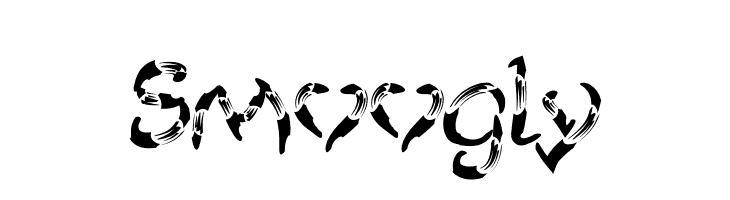
A playful, cloud-like decorative font with a fluffy, bold appearance.
A bold, modern, and condensed font with consistent stroke thickness.
A bold, brush-style font with dynamic, expressive strokes.
A retro-themed dingbat font with smoking-related illustrations.
A bold, dripping font with a dramatic and eerie style.
A decorative, calligraphic font with artistic, flowing strokes.
A decorative font with a flowing, organic style and medium contrast.
A bold, cracked texture font with an edgy, distressed style.